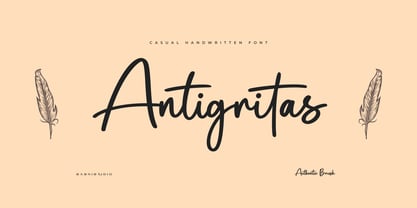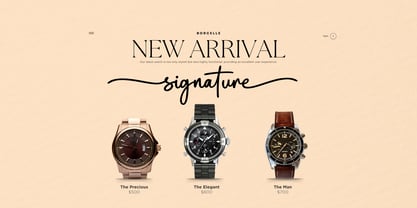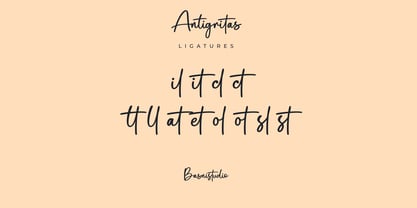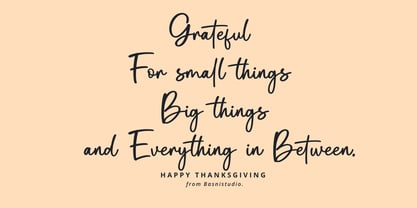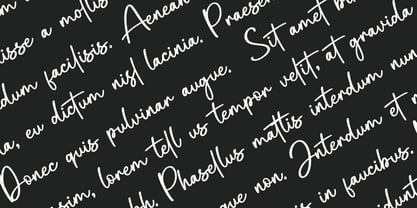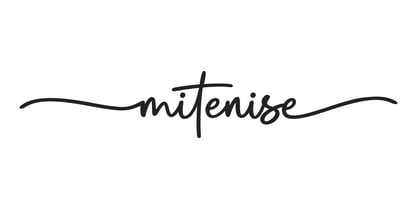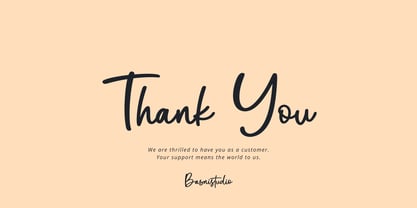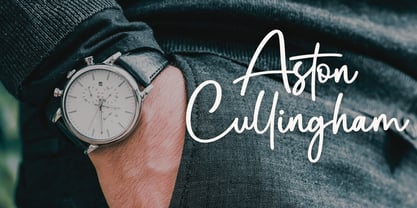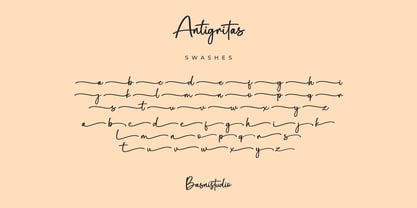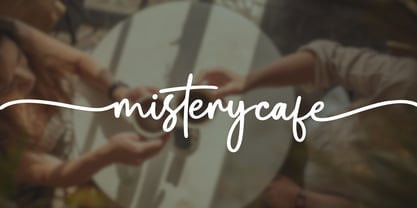
Antigritas
Die Schriftfamilie Antigritas wurde von Bery Arisandi entworfen und von Basnistudio veröffentlicht. Antigritas enthält 1 Stile. Mehr über diese Familie
Antigritas – a Chic Handwritten Font Handwritting Font Created with real pen strokes for a natural look and casual touch to everything from branding and social media to invitations and packaging. Natural & Casual – Perfect for tagline, quotes, greeting cards, and more Authentic Handwritten Feel – Created with real pen strokes for a natural look Easy to Use – Works seamlessly with all major design programs Whether you’re building a powerful brand identity or crafting a standout design, Antigritas a Handwritting Font Created with real pen strokes for a natural look gives you the creative edge you need. What’s Included: Uppercase & lowercase letters swashes & ligatures Numbers & punctuation Multilingual Support ( Support for 90 languages ) If you have any questions please don’t hesitate to contact me Thank you